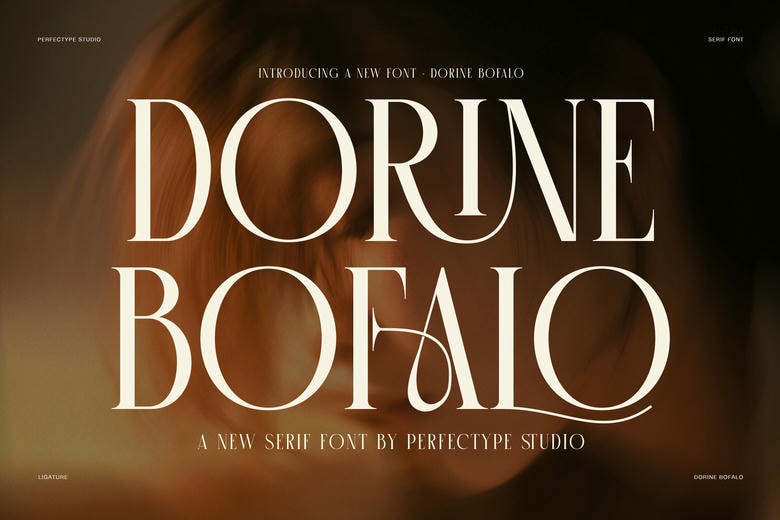
Dorine Bofalo Font
Stand out with Dorine Bofalo’s tall proportions, thin stems, and sweeping ligatures. This luxury display serif font blends bold contrasts and delicate curves for a striking look. Its style brings a regal touch to editorial titles and modern monograms.
It works well for luxury fashion logos, magazine spreads, perfume packaging, event branding, wine labels, quote prints, and custom Cricut or Silhouette projects.
Dorine Bofalo Serif Font